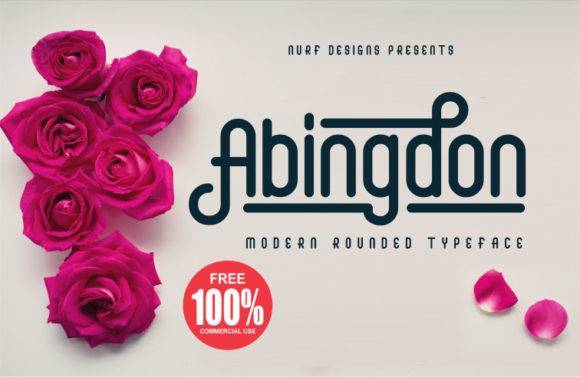
Abingdon Font for Headlines, Posters and Branding Projects
This is a serif display font crafted with a balance of classic elegance and modern edge. Featuring high stroke contrast and refined letterforms, Abingdon is ideal for projects that require a touch of timeless style and editorial strength.
As a font entity, Abingdon supports brand development, luxury print design, and polished digital assets. It’s optimized for large-format visibility while maintaining subtle detailing in both screen and print contexts.
From brand logos to publication titles and packaging design, this font adds a distinguished typographic identity to every composition. Its versatility allows it to seamlessly complement various styles and messages, making it an ideal choice for diverse applications. Many designers consider the anklepants font for branding projects, as its unique character stands out in a crowded market. Whether revitalizing an old brand or launching a new one, this font ensures memorable communication and a strong visual presence.
- Editorial designers and layout artists
- Luxury brand creators and agencies
- Print marketers developing upscale materials
- Educators crafting elegant visual content
- Typography enthusiasts exploring classic styles
- Magazine headlines and editorials
- Luxury brand logos and business cards
- High-end packaging and labels
- Elegant posters and event invitations
- Stylish web headers and marketing materials
- Elegant serif styling with visual authority
- Perfect for print and digital branding work
- Professional finish for editorial layouts
- Timeless style that elevates any project
Q: What style of font is Abingdon?
A: Abingdon is a serif display font designed for stylish branding, editorial use, and formal print applications.
Q: Why does it look thin on screen?
A: High-contrast serif fonts may appear lighter at small sizes. Use at larger display sizes for best impact.
Q: Can it be used for high-end packaging design?
A: Absolutely—Abingdon’s refined form makes it perfect for upscale print work and branded merchandise.
| Feature | Abingdon Font | Generic Serif Font A | Generic Display Font B |
| Font Style | Elegant serif display | Classic serif body font | Sans-serif promotional font |
| Best Use | Posters, branding, editorials | Long-form print text | Digital ads and banners |
| Design Feel | Luxurious and professional | Neutral and classic | Bold and modern |